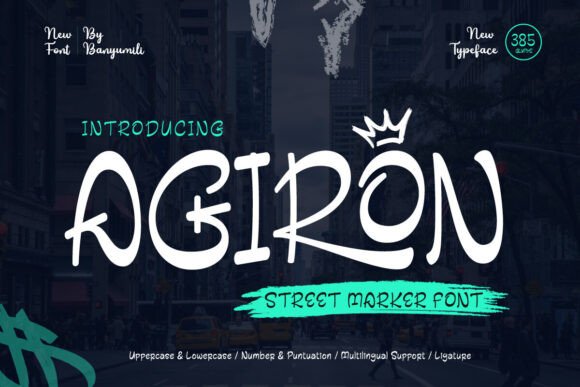
Agiron Font: Unleashing the Raw Energy of Street Art in Your Designs
The world of typography is vast and diverse, with countless fonts to choose from, each with its unique character and style. However, when it comes to capturing the essence of urban culture and street art, few fonts can match the raw energy and authenticity of Agiron Font. In this article, we’ll delve into the world of Agiron – Street Marker Font, exploring its inspiration, features, and uses, and why it’s the perfect choice for designers looking to add an edgy touch to their projects.
What is Agiron Font?
Agiron – Street Marker Font is a hand-drawn, marker-style typeface that embodies the spirit of street art and graffiti. Its raw and authentic strokes are reminiscent of the urban landscape, where street art and graffiti reign supreme. This font is not just a collection of letters and symbols; it’s an expression of the energy, creativity, and rebellion that defines urban culture.
The Inspiration Behind Agiron Font
The inspiration behind Agiron Font lies in the vibrant and dynamic world of street art. Street art and graffiti have long been a staple of urban culture, providing a platform for artists to express themselves, share their message, and leave their mark on the city. Agiron Font captures the essence of this art form, distilling it into a typographic style that’s both authentic and edgy.
The font’s creator drew inspiration from the streets, observing the way street artists used markers, spray paint, and stencils to create their art. The result is a font that looks like it was drawn with a marker, with rough, uneven strokes and a dash of urban grit.
Key Features of Agiron Font
- Hand-drawn and authentic: Agiron Font is a genuine representation of street art, with hand-drawn strokes that give it a raw, unpolished look.
- Marker-style: The font’s marker-style strokes evoke the feeling of street art, with bold lines and a vibrant, energetic quality.
- Urban and edgy: Agiron Font is perfect for designers looking to add an urban, edgy touch to their projects, from streetwear branding to event posters and album covers.
- Versatile: This font is versatile and can be used for a wide range of projects, from digital designs to print materials.
Perfect for Streetwear Branding and More
Agiron Font is the perfect choice for designers working on streetwear branding projects. Its urban, edgy vibe resonates with the streetwear culture, making it an excellent fit for logos, labels, and packaging. Additionally, this font is also great for:
- Event posters: Add a bold, eye-catching touch to your event posters with Agiron Font, perfect for concerts, festivals, and other urban events.
- Album covers: Give your music project a raw, edgy look with Agiron Font, ideal for hip-hop, punk, and alternative music genres.
- Street art-inspired designs: Use Agiron Font to create street art-inspired designs, from murals to graffiti-style artwork.
Tips and Tricks for Using Agiron Font
To get the most out of Agiron Font, here are some tips and tricks to keep in mind:
- Experiment with colors: Agiron Font looks great in bold, vibrant colors, so don’t be afraid to experiment and find the perfect color scheme for your project.
- Mix and match: Combine Agiron Font with other fonts to create a unique and interesting contrast.
- Play with textures: Add texture to your design by incorporating rough, grungy textures that complement the font’s urban feel.
Agiron – Street Marker Font is more than just a font; it’s a statement. It’s a declaration of independence, a rejection of the ordinary, and an embracing of the urban culture. With its raw, authentic strokes and marker-style feel, Agiron Font is the perfect choice for designers looking to add an edgy touch to their projects. Whether you’re working on streetwear branding, event posters, album covers, or any other project that needs a free-spirited, artistic flair, Agiron Font is the perfect tool to unleash your creativity and showcase your urban, artistic side.